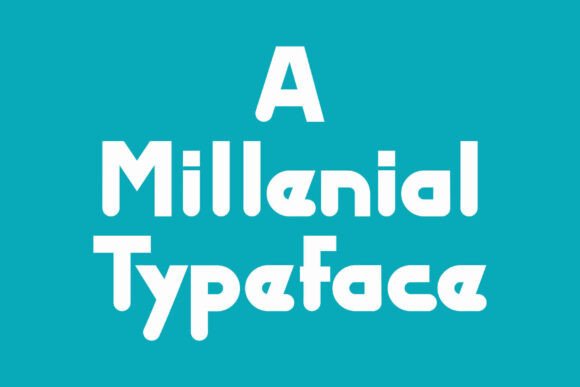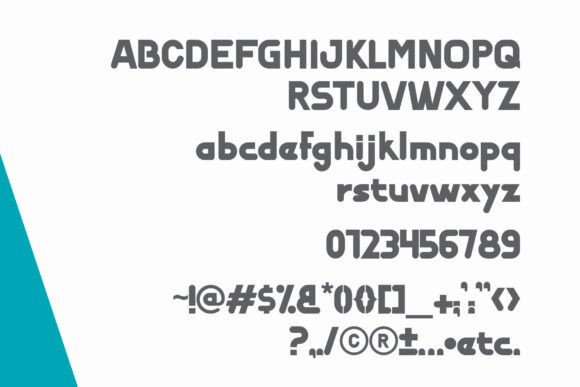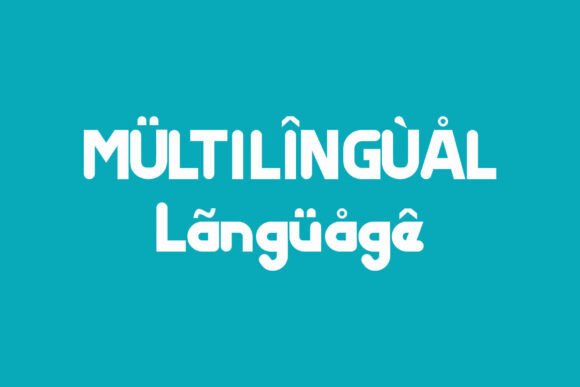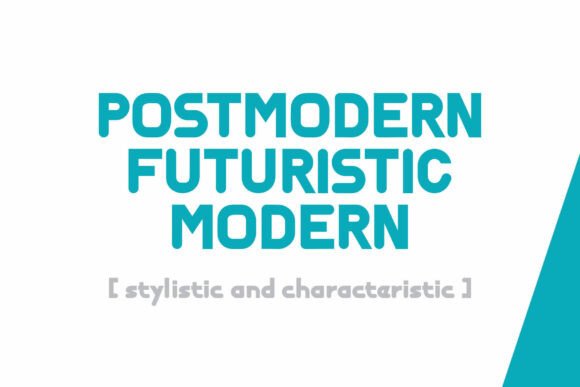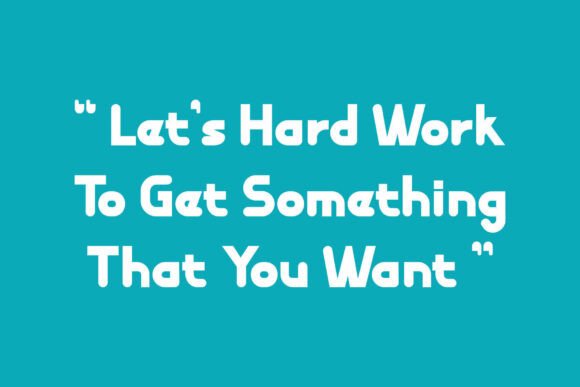
Introduction to Neonix Font
Neonix is a modern and futuristic typeface.
Neonix is a font that suitable for postmodern, futuristic, contemporary styles of graphic design Neonix have unique glyph characteristic.